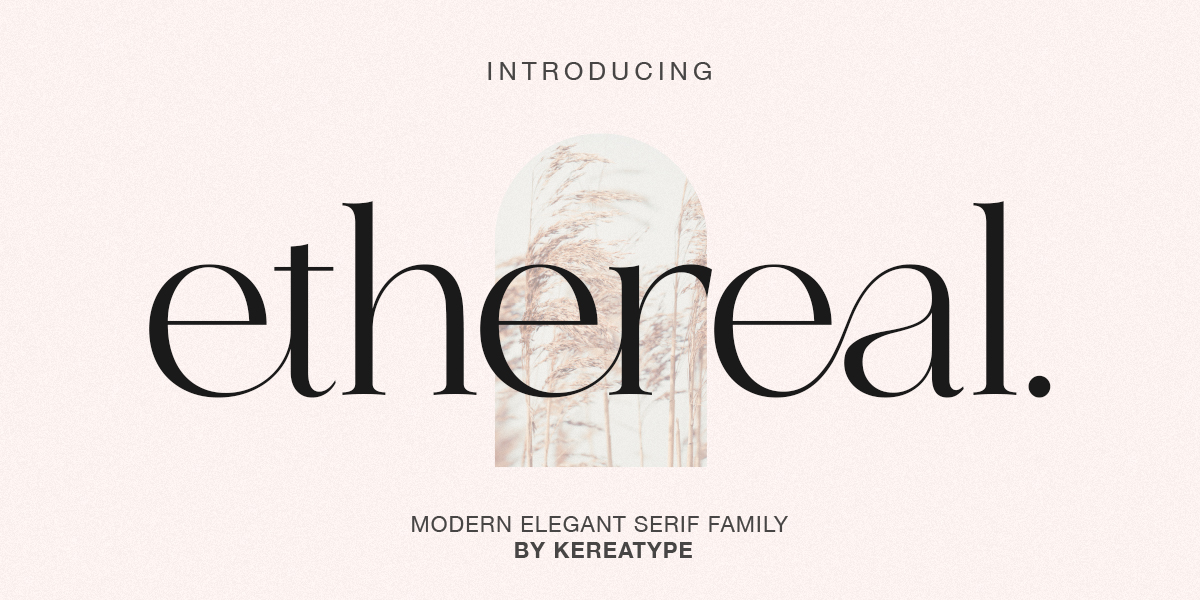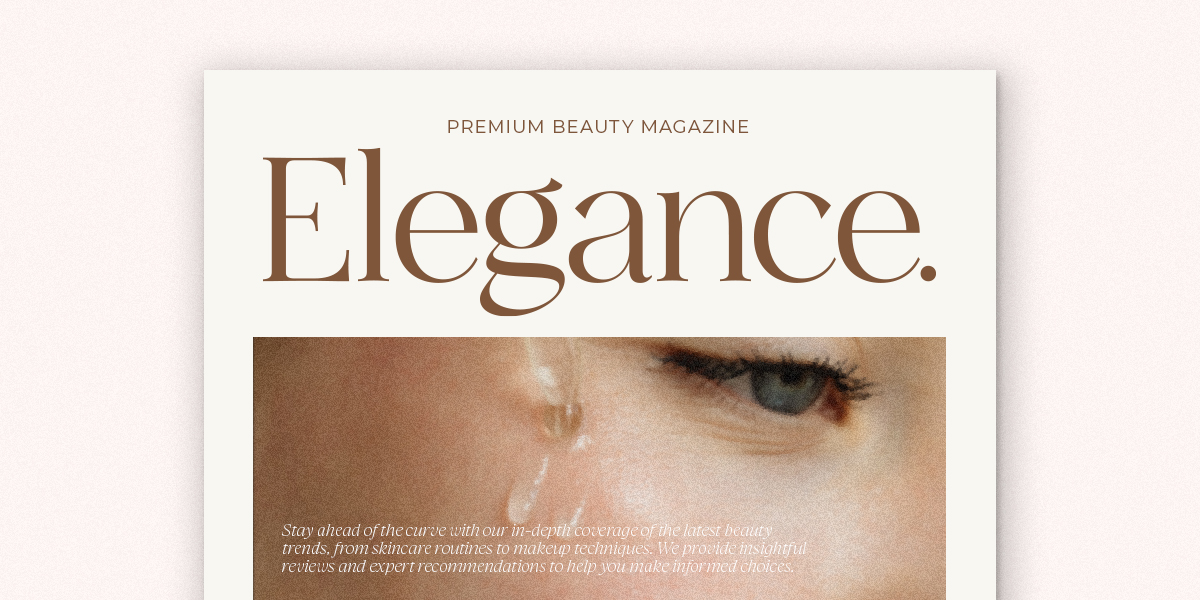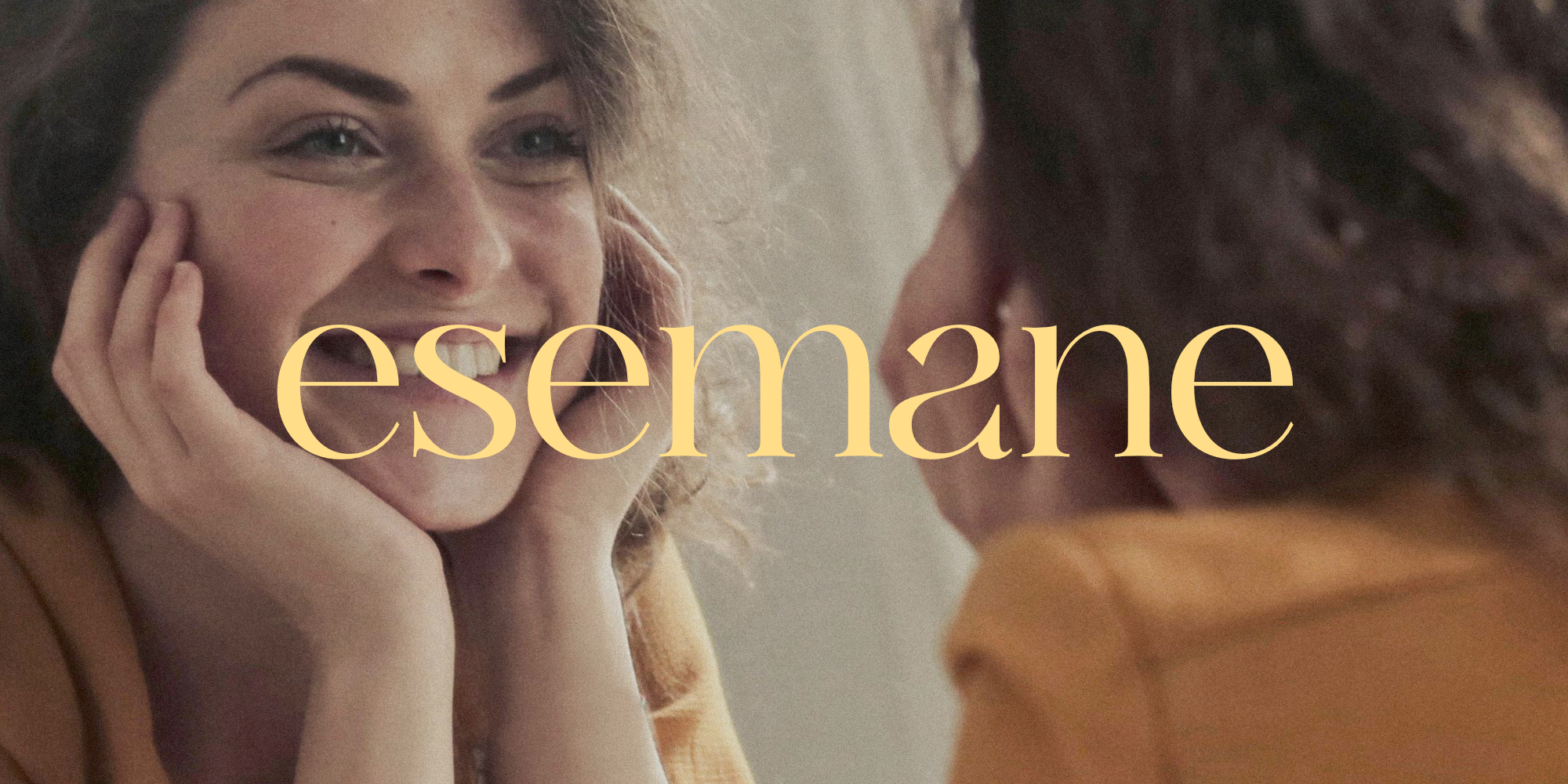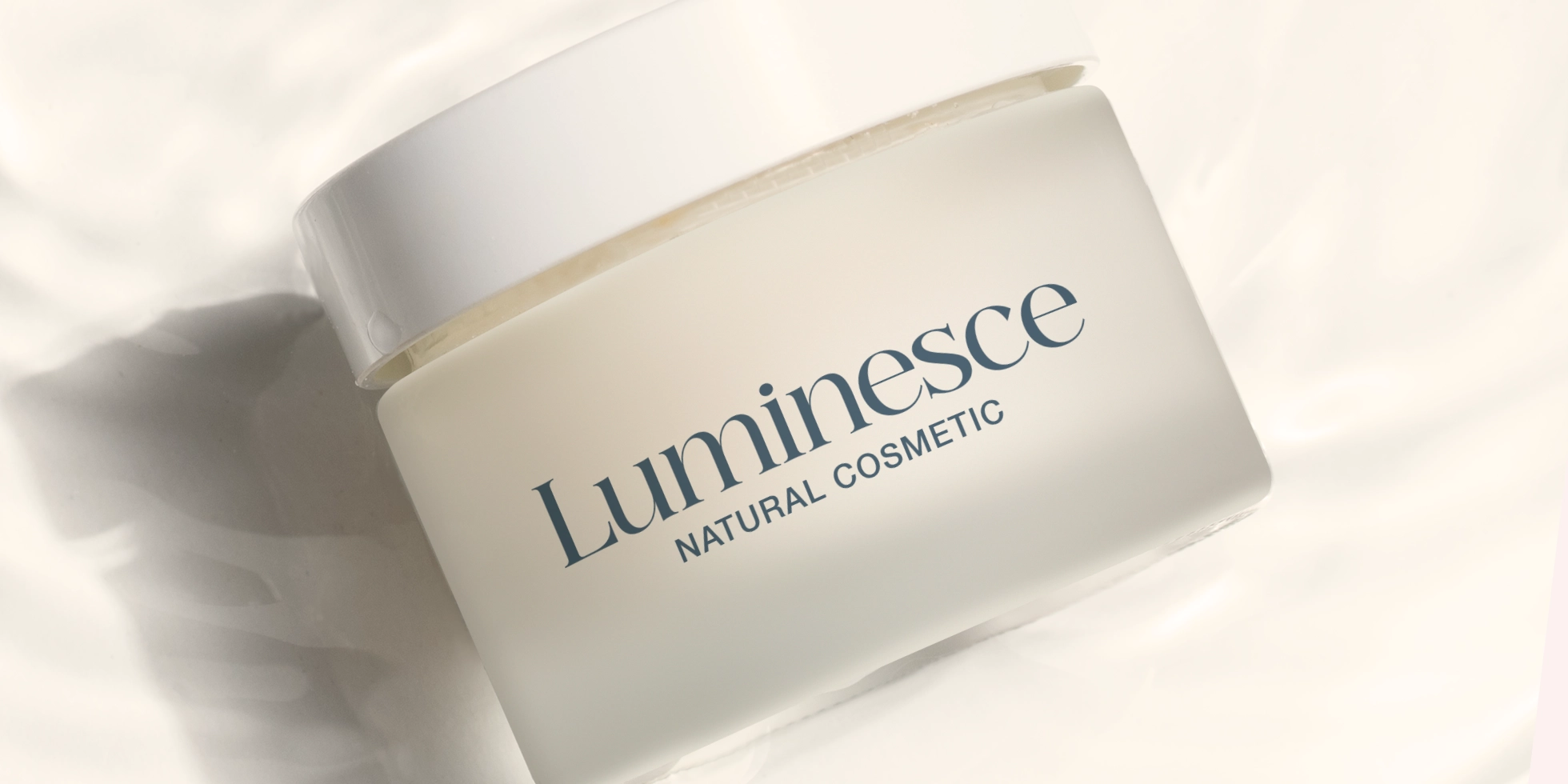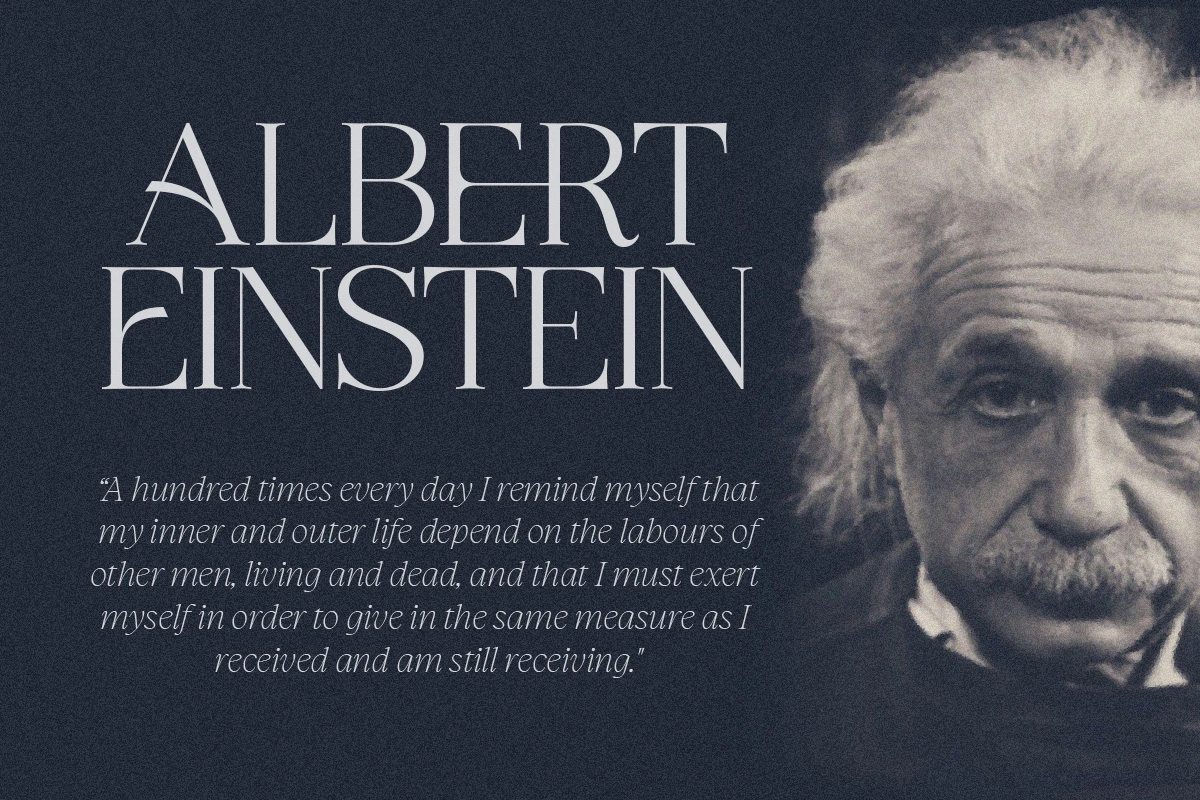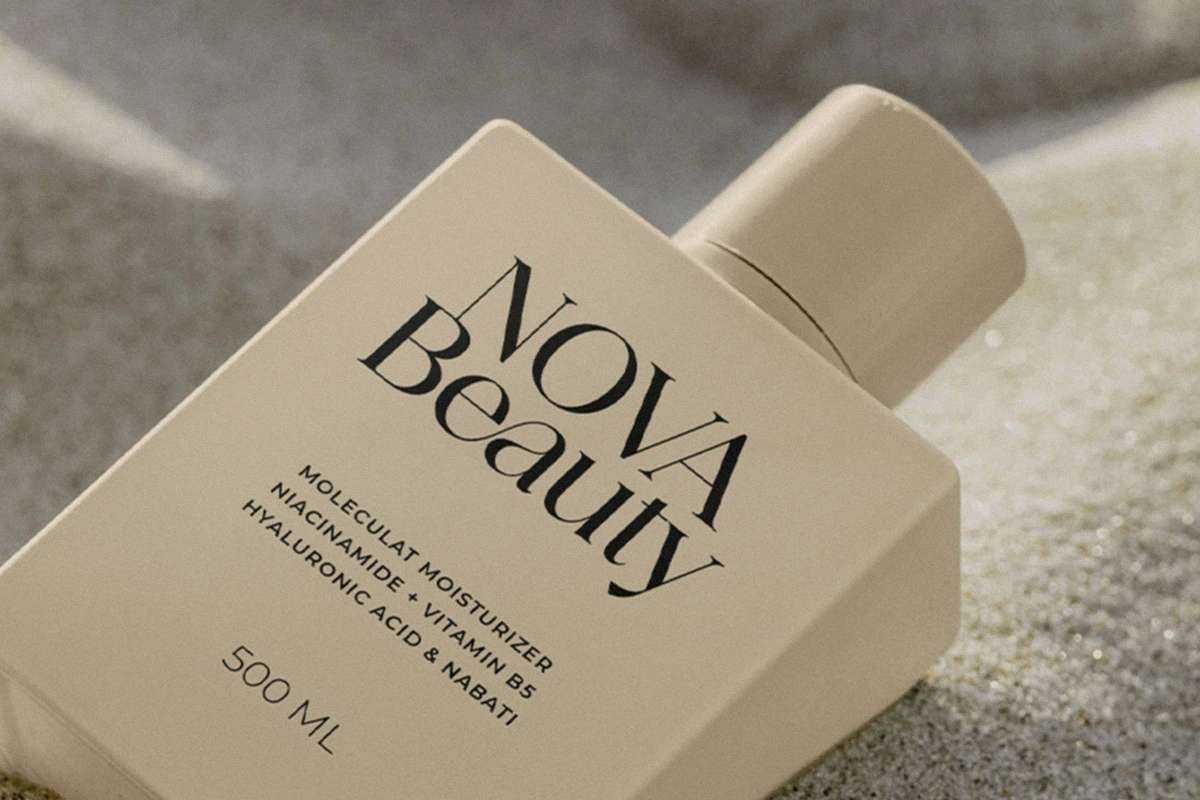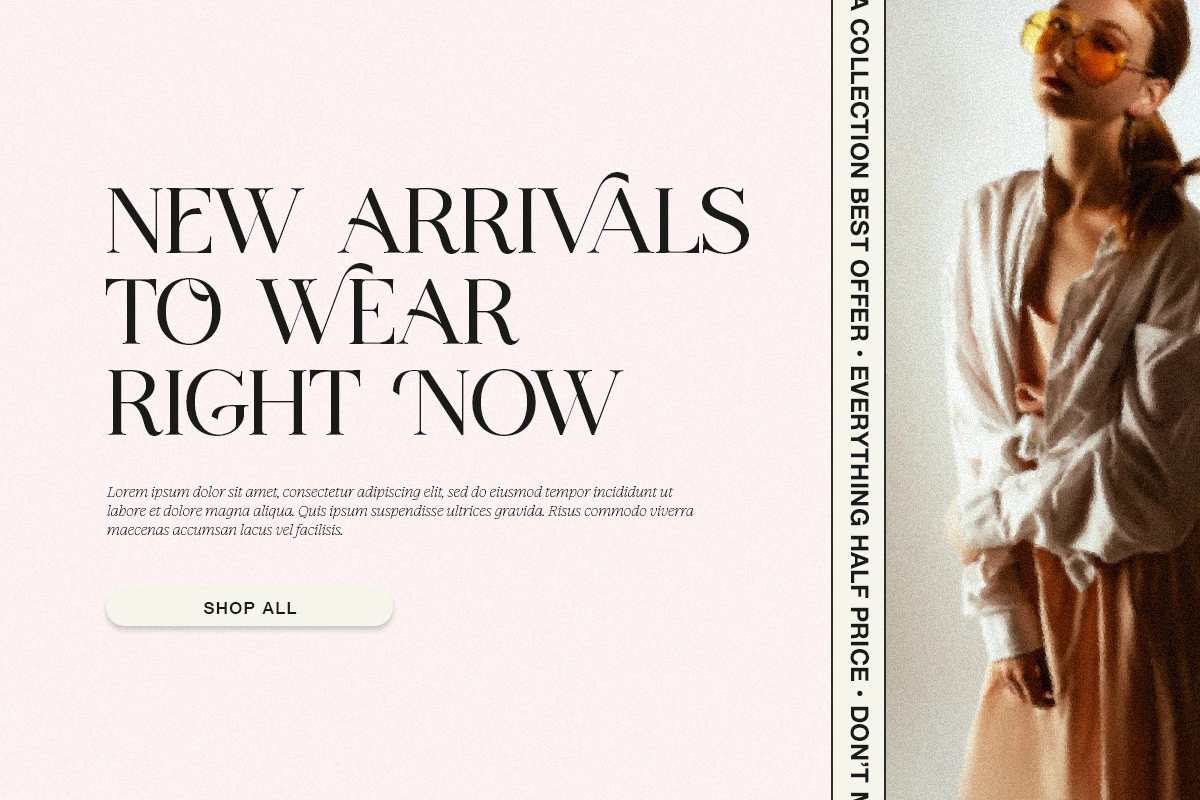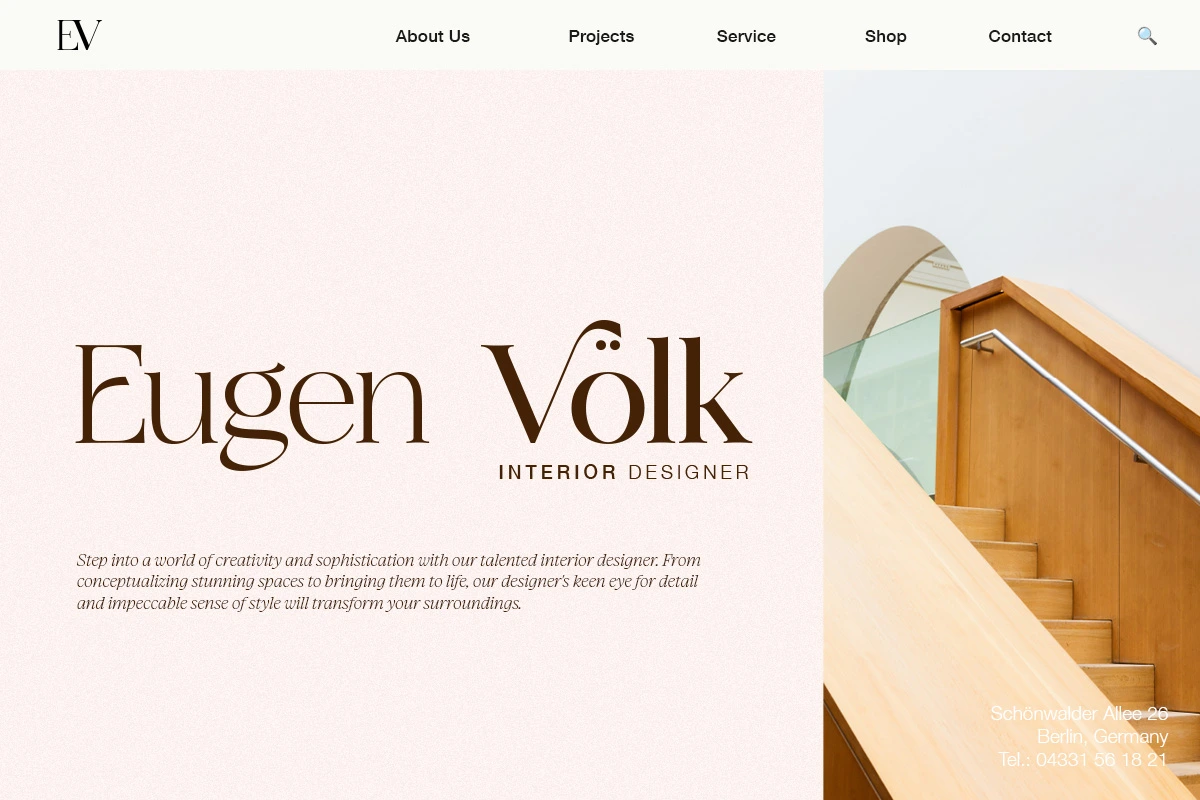
Ethereal
Perfectly tailored for luxury branding, editorial magazine layouts, and high-end fashion logos. Includes extensive multilingual support, stylistic alternates, and beautiful ligatures.
Ethereal
Ethereal luxury typeface with nine wight
Beautiful ligature typeface
Graceful, Airy, and High-Contrast Romantic Serif
Elevate your design projects with Ethereal, an elegant serif font that perfectly blends traditional elegance with contemporary aesthetics. Born from the need for a highly versatile display typeface, Ethereal offers exceptional readability for long editorial layouts while maintaining a unique, striking personality for luxury brand headlines.
Unlike standard typefaces, the Ethereal font family is built with 9 distinct weights ranging from a delicate Thin to a commanding Black. Whether you need an airy hairline for a high-end cosmetic packaging or a bold statement for a fashion poster, this high-contrast elegant serif font has you covered. Its subtle curves and sharp terminals create an instant sense of exclusivity, making it a top choice for professional designers and creative agencies.
Equipped with 414 glyphs, Ethereal supports comprehensive multilingual layouts and comes packed with OpenType features. Enjoy standard and discretionary ligatures, stylistic alternates, and fractions to give your typography a refined, custom-tailored look. Perfect for elegant wedding invitations, boutique logos, and classy lifestyle magazines.
Graceful, Airy, and High-Contrast Romantic Serif